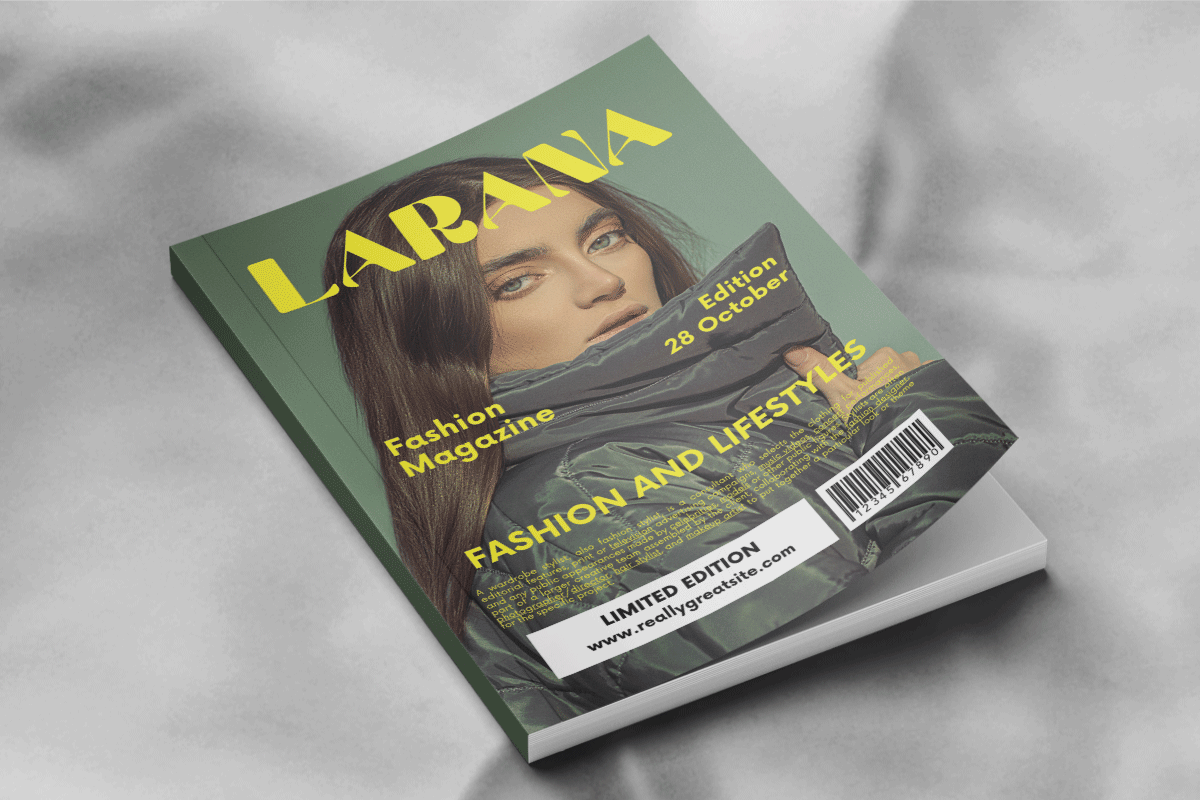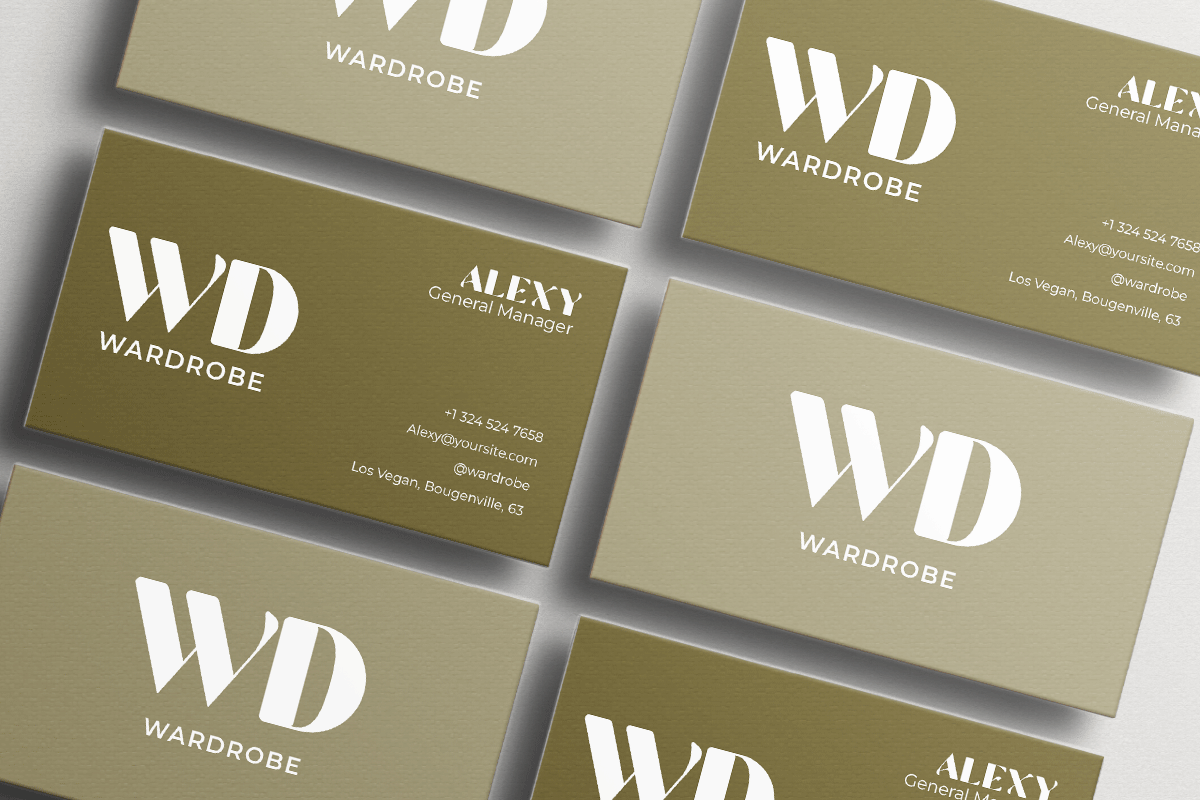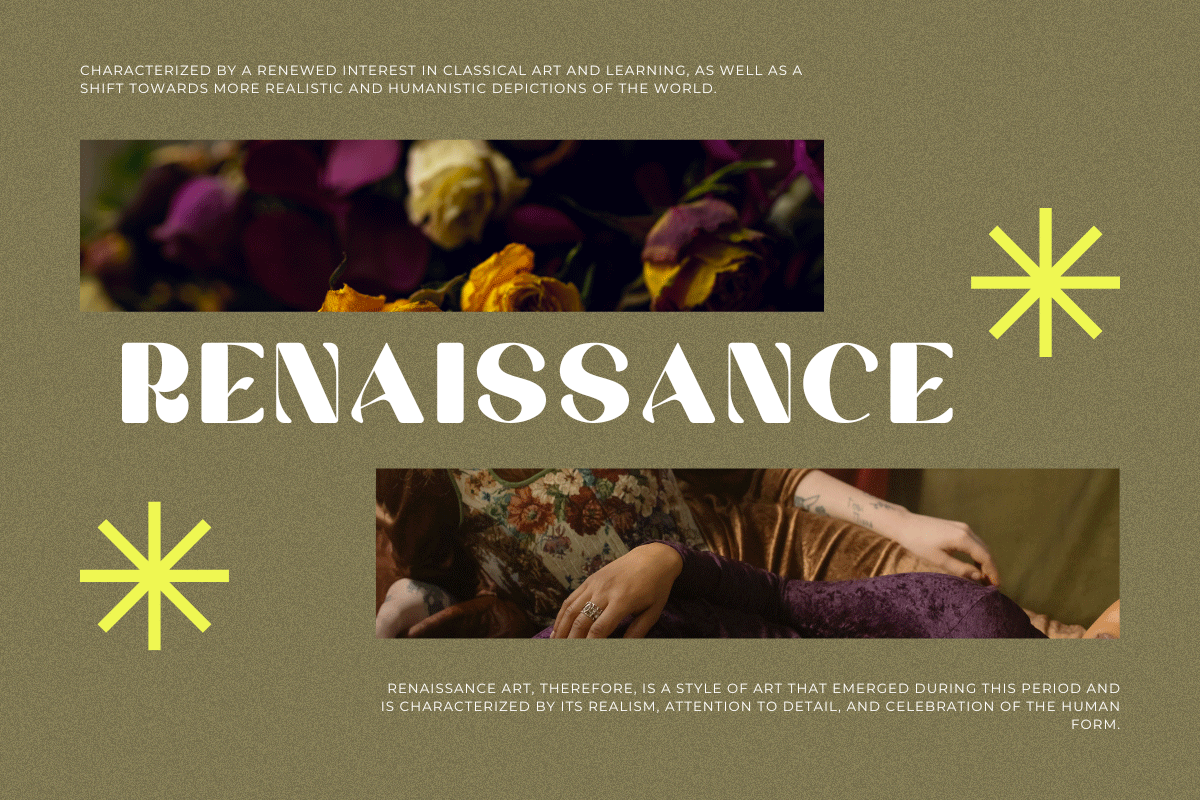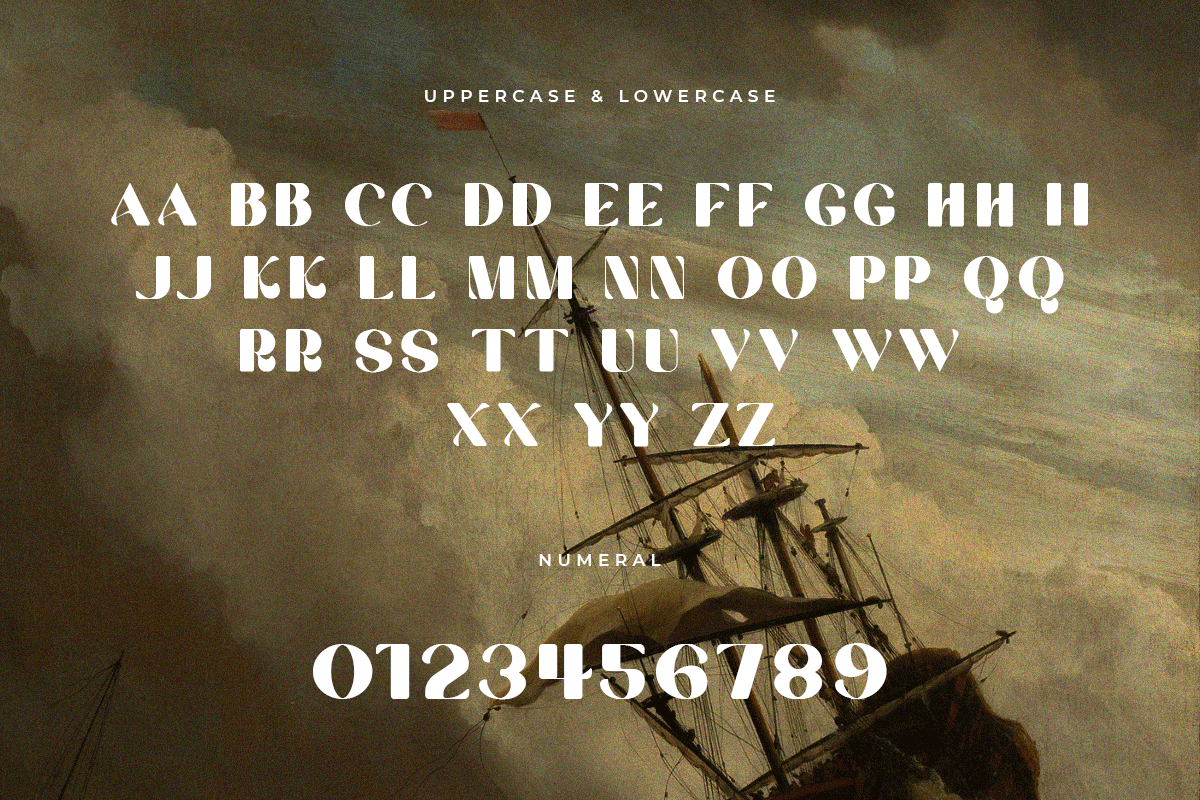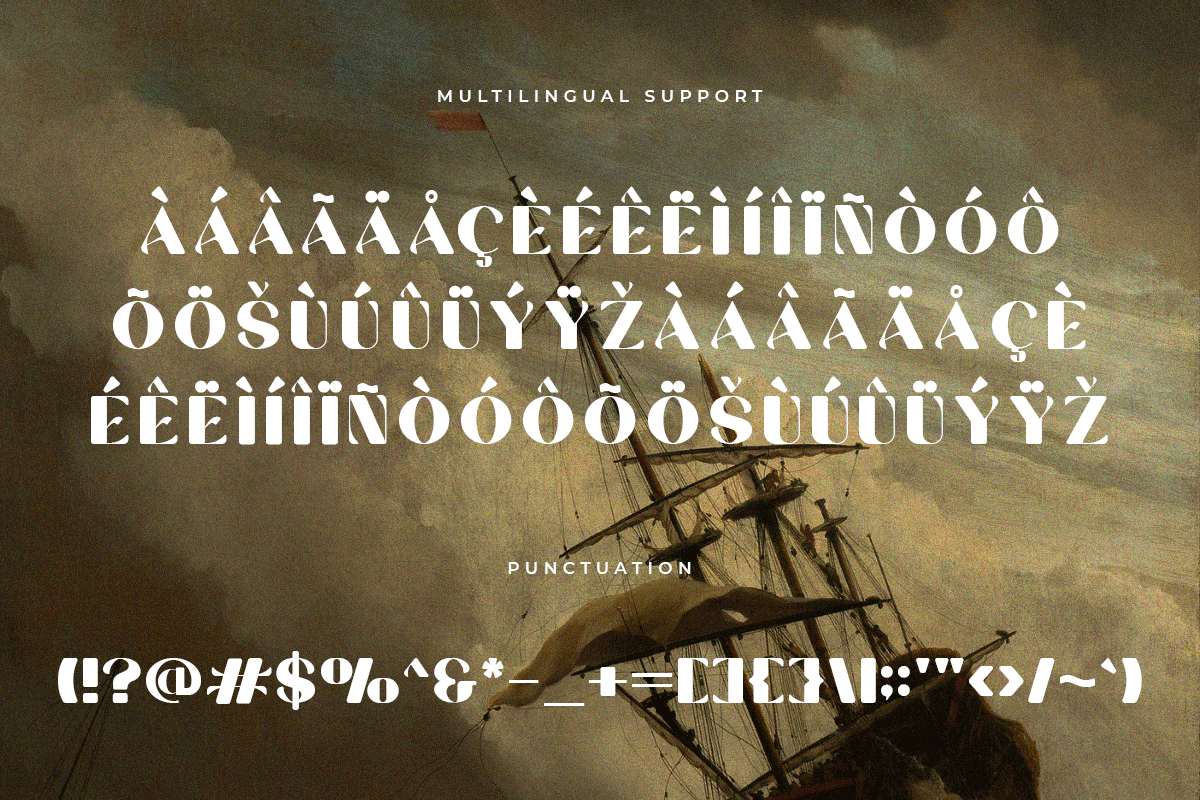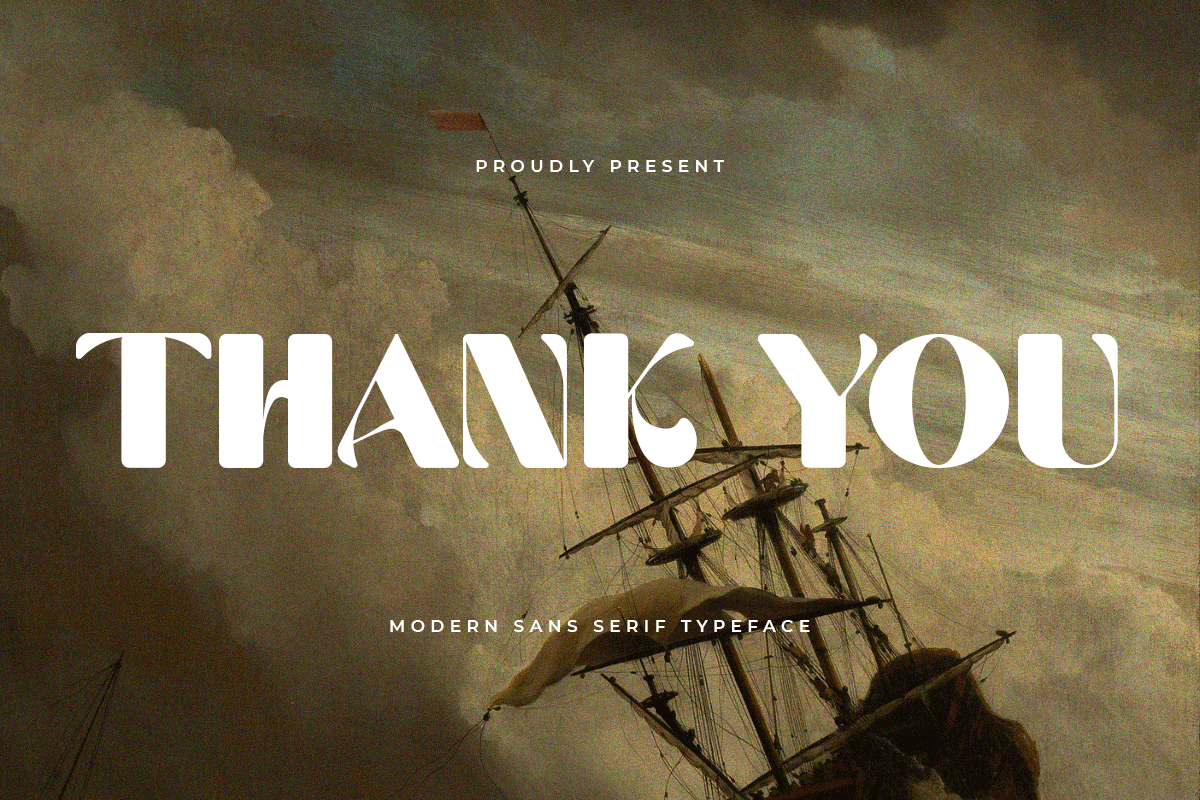
Regrace Modern Sans Serif Font is a new Sans Serif Font creation that comes with a great style and is made with the addition of curvature variation than usual. This font is one of the fonts that give you options for people who are interested in using a sans serif font. Regrace Modern Sans Serif Font has the characteristic that there is no exaggeration in each form of the letter. This font has a normal shape like the original letter. From the style, this font is legible. This font will be seen as clean when used with large font size. Regrace Modern Sans Serif Font certainly has high usability when used for branding a product. This font can use for advertising posters, brand tags, and shop signs. This font can create a modern and simple impression of the product combined. This font can use for magazine covers and book covers. Regrace Modern Sans Serif Font can use as a digital font. It can use as a product marketing advertising font, animated videos, and films. Our Sans Serif fonts collection is compatible for use as; Figma fonts, Canva fonts, Freepik Fonts, and Adobe Fonts. They also work as Windows Fonts and Apple Fonts. For your social media needs, you can use and install fonts in our Sans Serif font collection to use as Instagram Fonts, Facebook Fonts, and Twitter Fonts.